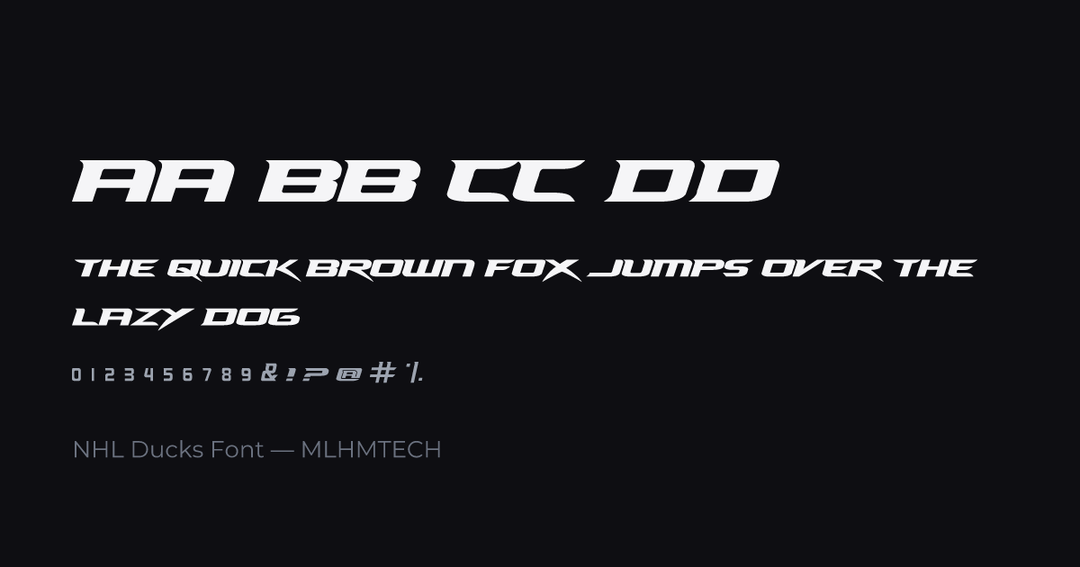
NHL Ducks Font
A bold, sporty font inspired by the NHL Ducks team, ideal for sports graphics, logos, and fan merchandise.
This font captures the energetic and bold spirit of hockey, with sharp angles and strong letterforms that evoke the fast-paced action of the game. Perfect for creating eye-catching titles, jersey numbers, and promotional materials for sports events or fan clubs.
Whether you're designing a team logo, a sports poster, or custom apparel, this font adds a professional and dynamic touch that stands out.